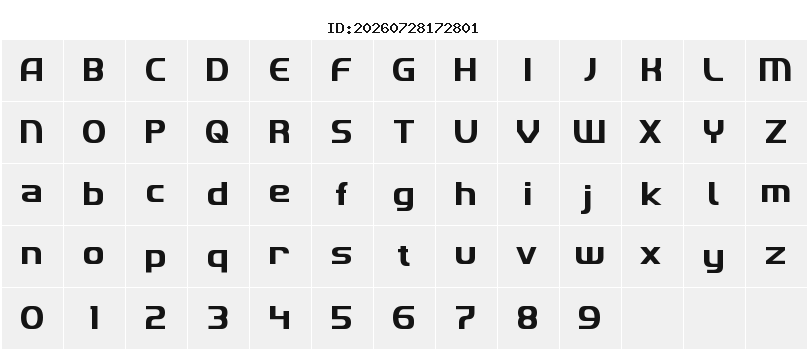
• Font Name: Imaki
• Designer: Neale Davidson
About Imaki.ttf
Imaki.ttf is a modern, elegant sans-serif font designed for ultimate readability and visual harmony. Perfect for branding, headlines, web design, and print materials.